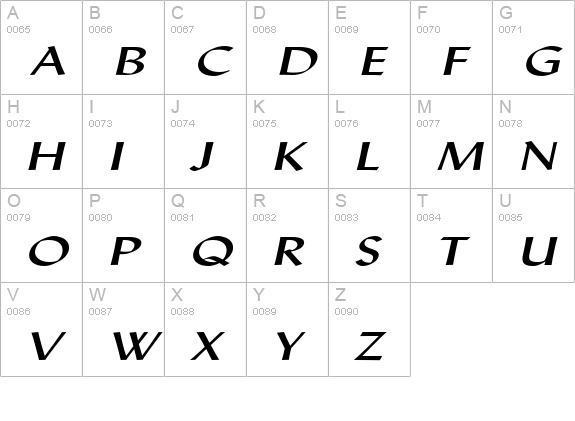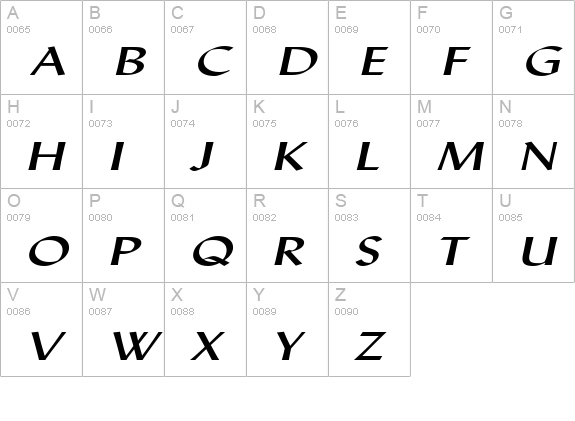
Lynda Extended Italic Font Details
Lynda Extended Italic is a distinctive, extended-width, italic variant in the Lynda typeface family \xE2\x80\x94 well suited to design and typography projects.
Lynda Extended Italic font is a stylish and sophisticated typeface that exudes elegance and modernity. Its extended italic design adds a touch of flair and creativity to any project, making it perfect for graphic design, branding, and editorial work. This versatile font is perfect for creating eye-catching headlines, logos, and branding materials. Its sleek and contemporary look will make your designs stand out and leave a lasting impression on your audience. Best of all, Lynda Extended Italic font is available for free download at FontsMarket.com. So you can easily access this beautiful font and use it in your projects without any cost. Don't miss out on this opportunity to enhance your designs with the stunning Lynda Extended Italic font!